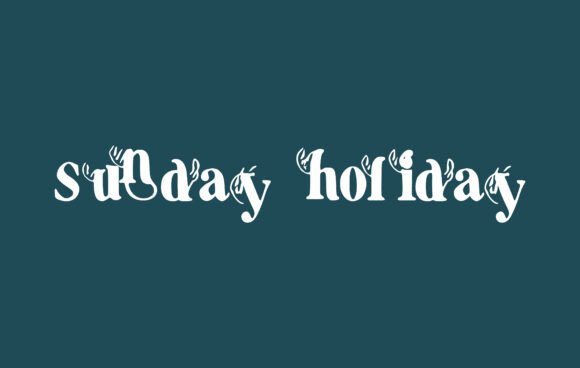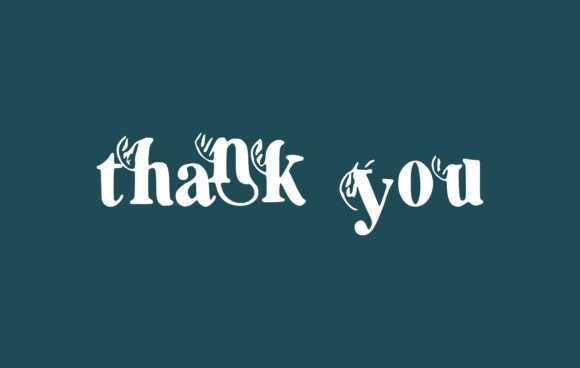
Introducing Glyphora Font: Whimsical Serif Elegance with a Touch of Nature
In the world of typography, fonts play a crucial role in conveying the tone and personality of a brand or design. For those seeking a unique and captivating font that embodies the essence of nature, Glyphora Font is an exceptional choice. This whimsical serif font features elegant leaf flourishes woven into the letterforms, making it perfect for eco-conscious branding, botanical designs, book covers, or any project that needs a touch of natural elegance and fantasy charm.
What Makes Glyphora Font Special?
Glyphora Font stands out from the crowd with its distinctive leaf flourishes that add a touch of whimsy and sophistication to any design. The font’s serif structure provides a sense of tradition and classic elegance, while the leaf embellishments infuse a sense of playfulness and connection to nature. This unique blend of styles makes Glyphora Font versatile and suitable for a wide range of design applications.
Perfect for Eco-Conscious Branding
As consumers become increasingly environmentally aware, brands are seeking ways to convey their eco-friendly values through their visual identity. Glyphora Font offers a beautiful solution, with its organic and natural feel evoking the world of plants and botanicals. This font is ideal for eco-conscious brands looking to create a distinctive and memorable visual identity that resonates with their target audience.
Botanical Designs and Book Covers
Glyphora Font’s botanical charm also makes it an excellent choice for designers working on botanical illustrations, garden-inspired projects, or book covers that require a touch of natural elegance. The font’s leaf flourishes will add a delicate and sophisticated touch to any design, transporting readers to a world of fantasy and wonder. Whether you’re designing a book cover for a nature-inspired novel or creating a label for a botanical product, Glyphora Font is sure to impress.
Key Features of Glyphora Font
- Whimsical serif font with elegant leaf flourishes woven into the letterforms
- Eco-friendly and natural feel, perfect for eco-conscious branding and botanical designs
- Versatile and suitable for a wide range of design applications, including book covers, labels, and more
- Unique blend of traditional and playful elements, adding a touch of fantasy charm to any design
Tips for Using Glyphora Font Effectively
To get the most out of Glyphora Font, consider the following tips:
- Pair with complementary fonts to create a harmonious and visually appealing design
- Experiment with different colors to enhance the natural and eco-friendly feel of the font
- Use in combination with natural textures or illustrations to create a cohesive and earthy design
- Play with font sizes and styles to add visual interest and hierarchy to your design
Glyphora Font is a unique and captivating font that offers a fresh perspective on serif typography. With its elegant leaf flourishes and whimsical charm, this font is perfect for designers and crafters seeking to add a touch of natural elegance and fantasy charm to their designs. Whether you’re working on eco-conscious branding, botanical designs, book covers, or any other project, Glyphora Font is sure to inspire and elevate your creative vision.